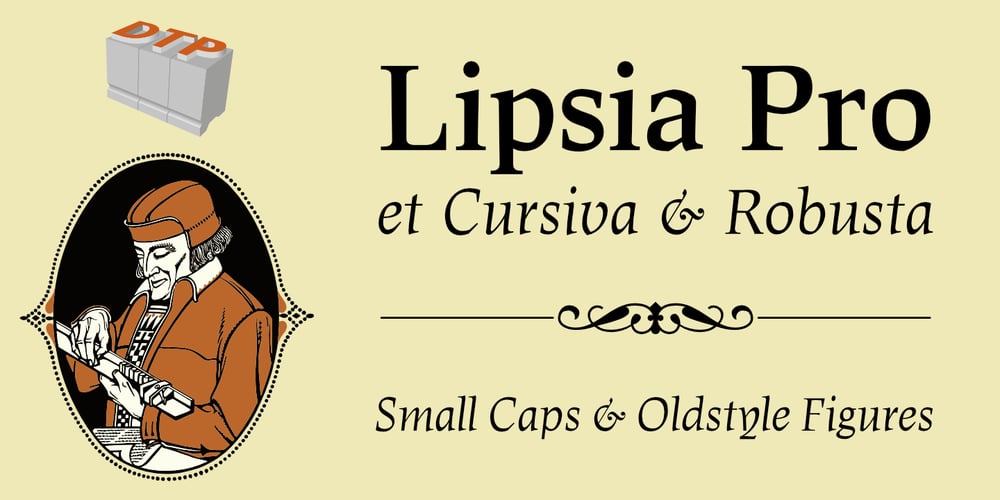
Lipsia Pro Font Family was designed by Albert Kapr, Ralph M. Unger and published by RMU. Lipsia Pro contains 3 styles and family package options. An RMU redesigned font family of Kapr’s Leipziger Antiqua which was extended for multilingual use, and added small caps and oldstyle figures.